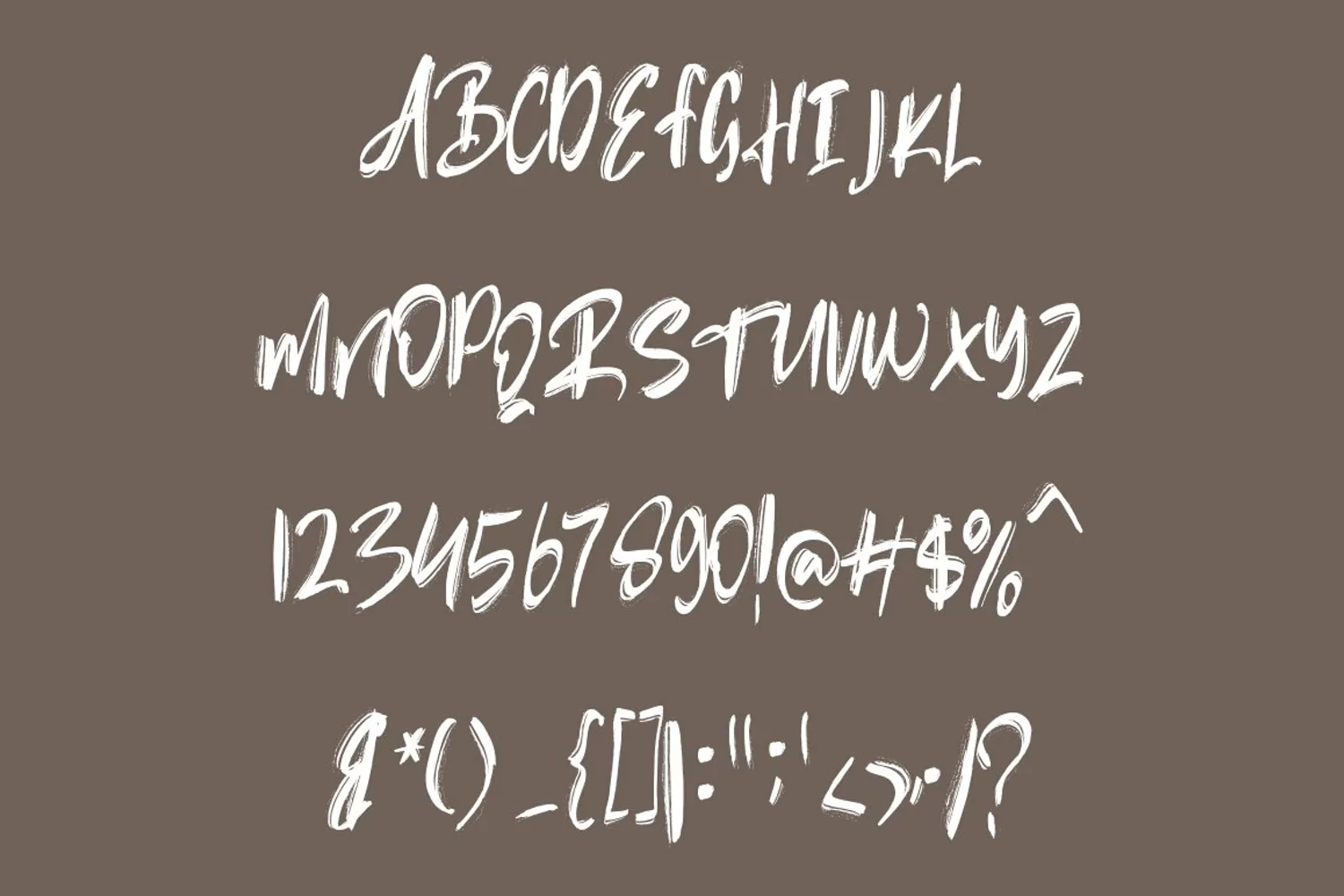
INTRODUCING Rubin Key Brush Font ideal for logos, apparel,T-shirt,Hoodie, quotes, product packaging, or anything which needs a typographic turbo-boost. With extra attention to quick strokes and sharp details,
Made carefully to create the perfect texture and suitable for each of your projects also great for Logotype, Branding Design, Logo Design, Digital Lettering Arts, T-Shirt/Apparel, Poster, Magazine, Signs, Advertising Design, and any vintage design needs.